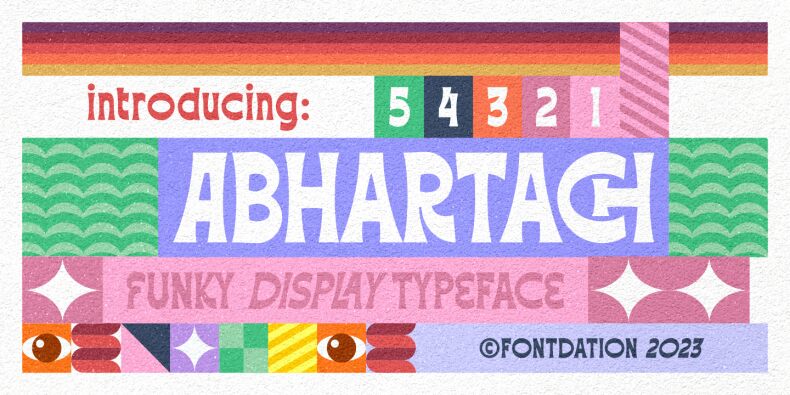
Abhartach, a bold and captivating display font crafted by Twicolabs Fontdation, exudes a distinct groovy flair. With its condensed width and striking presence, this font commands attention, effortlessly blending retro charm and modern sensibilities. The amalgamation of its robust, angular strokes and fluid, organic forms creates a visual experience that is both compelling and versatile.
This font's versatility allows it to shine in a wide range of design applications, from eye-catching headlines and impactful logos to captivating editorial layouts and dynamic branding collateral. Abhartach's bold and confident presence lends itself seamlessly to projects that demand a bold, attention-grabbing aesthetic, making it an excellent choice for designers seeking to elevate their creative vision.